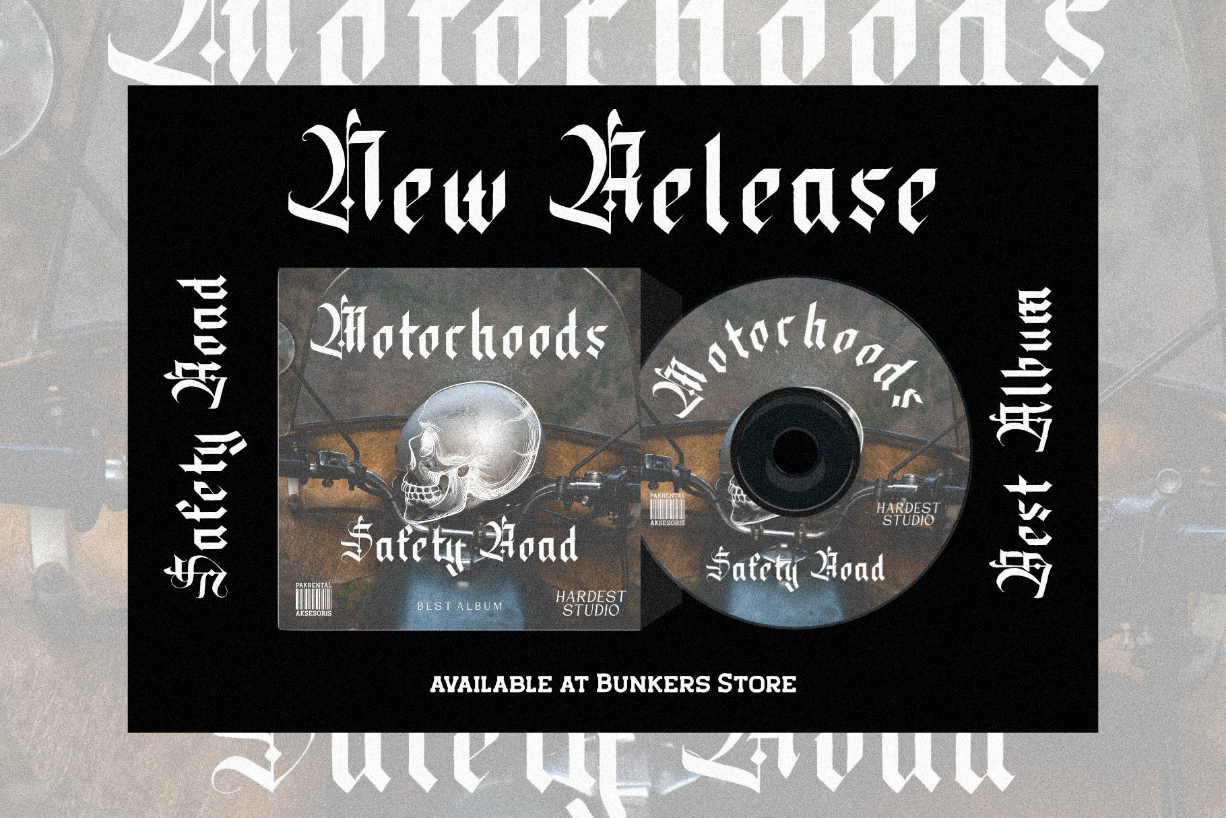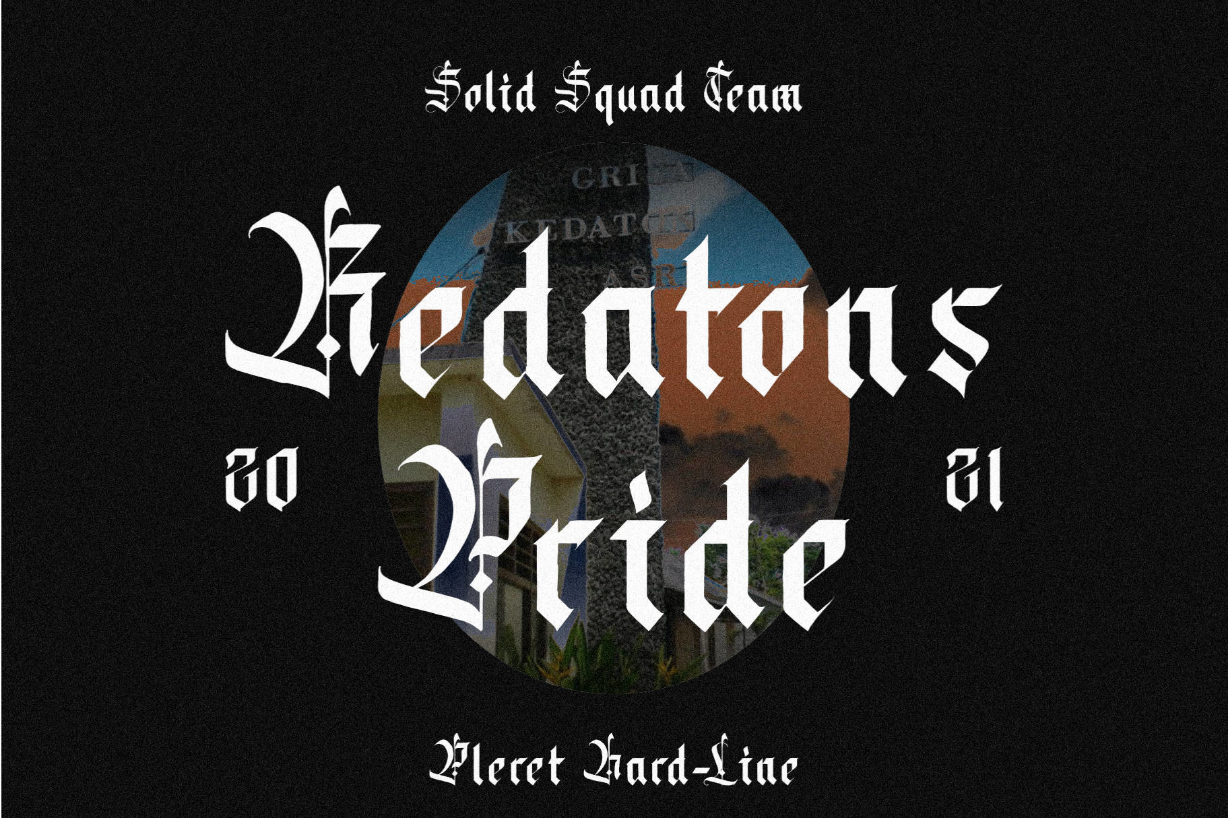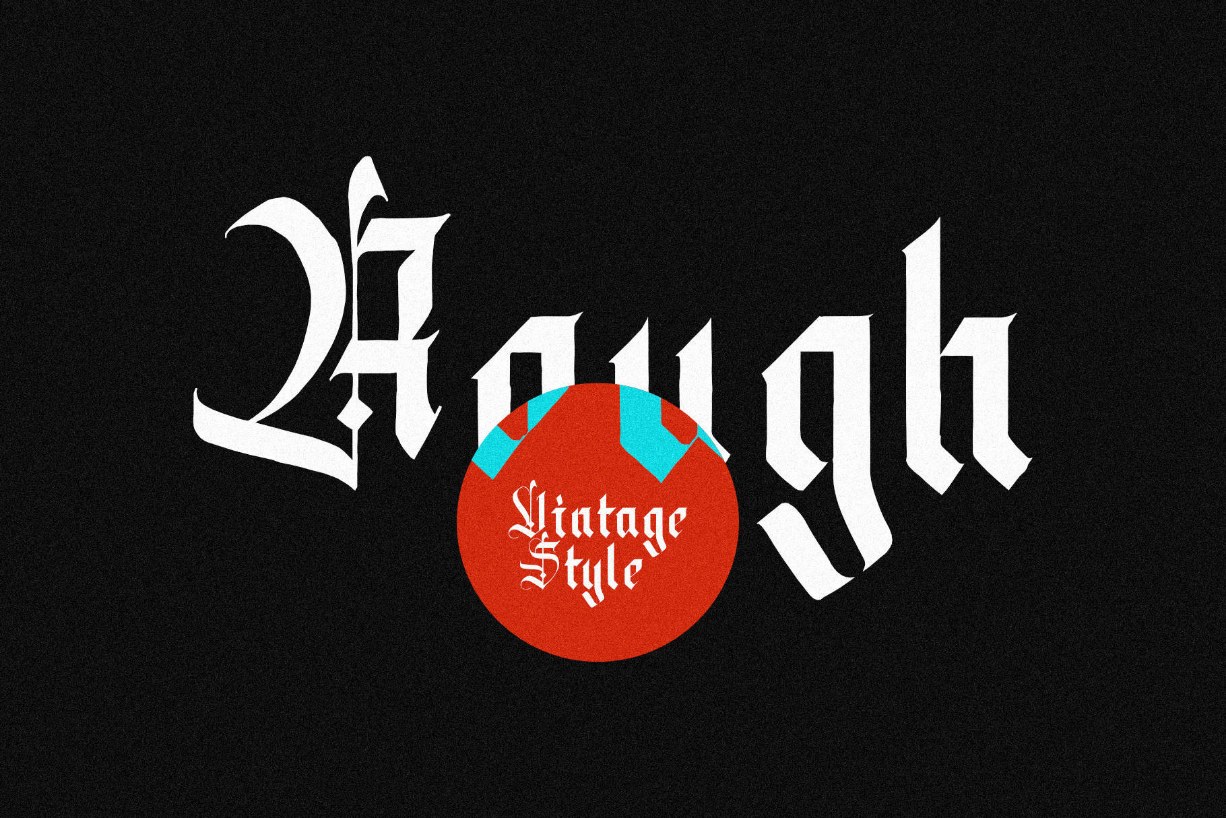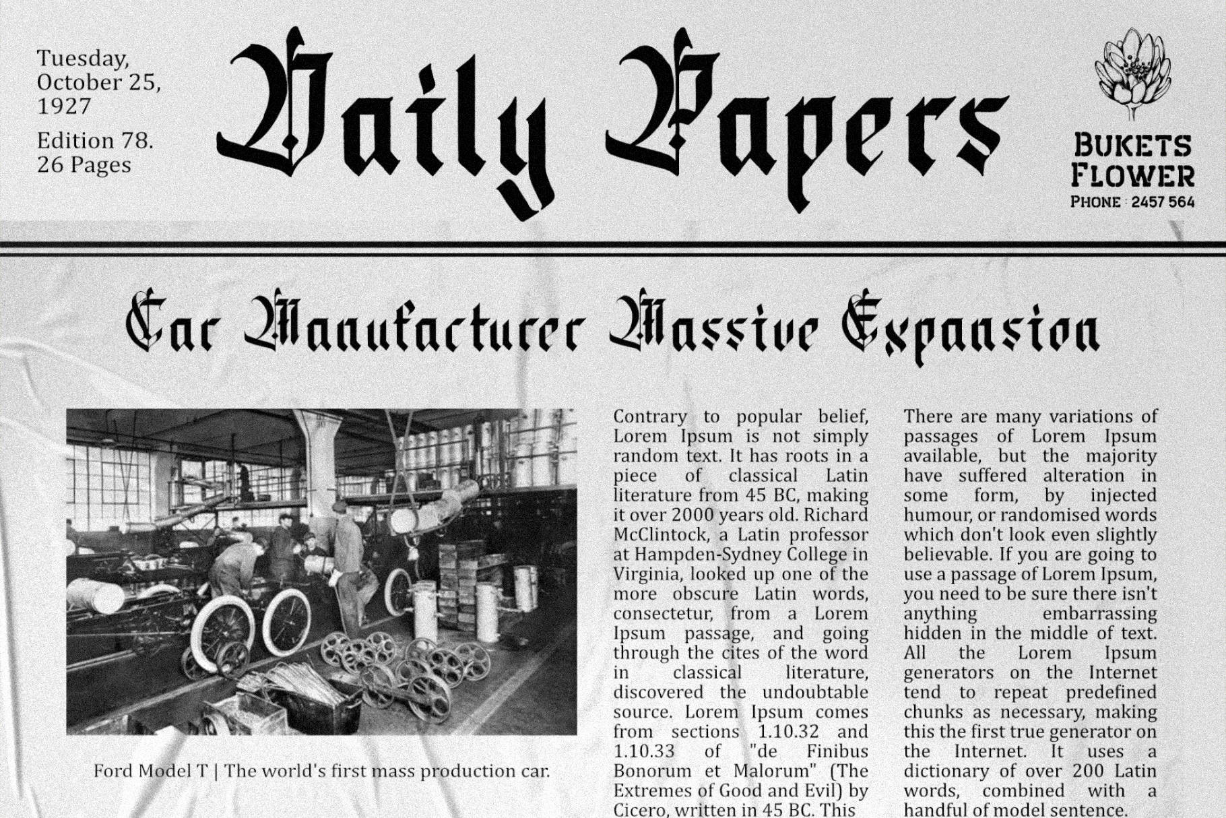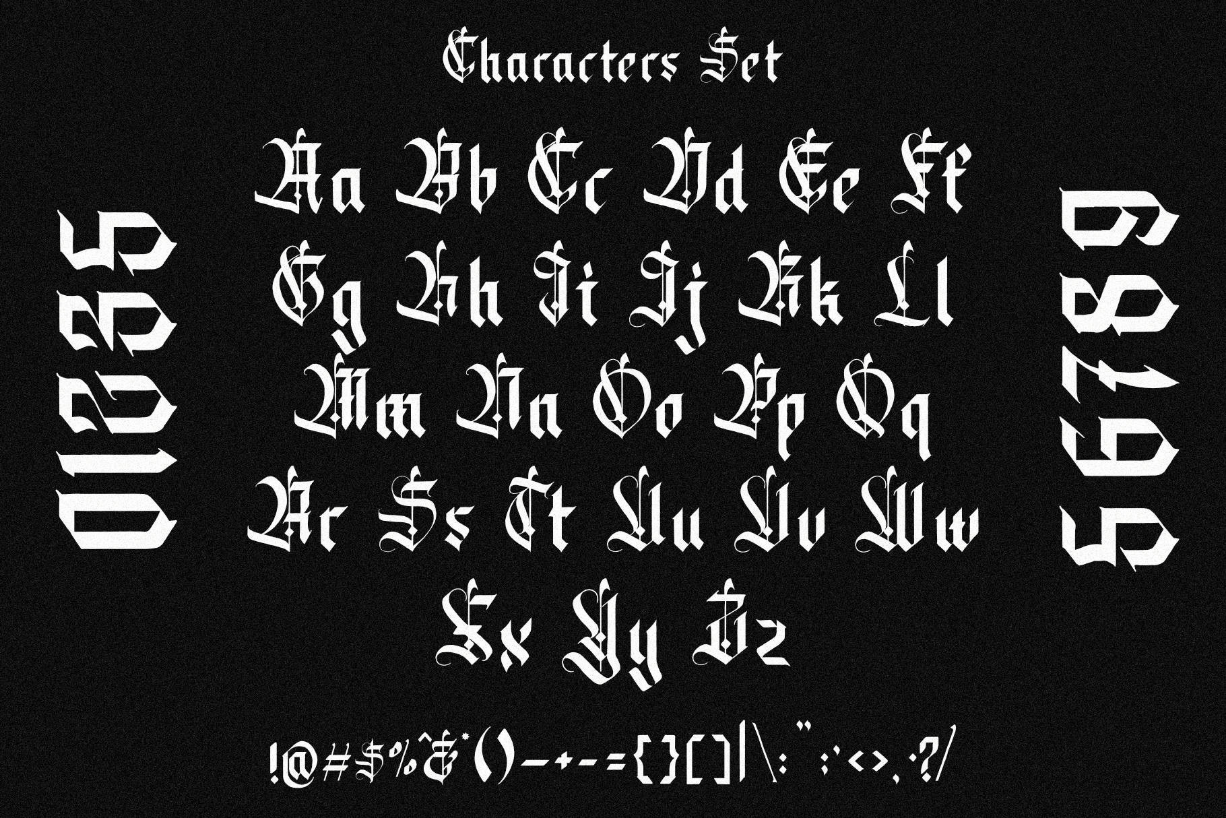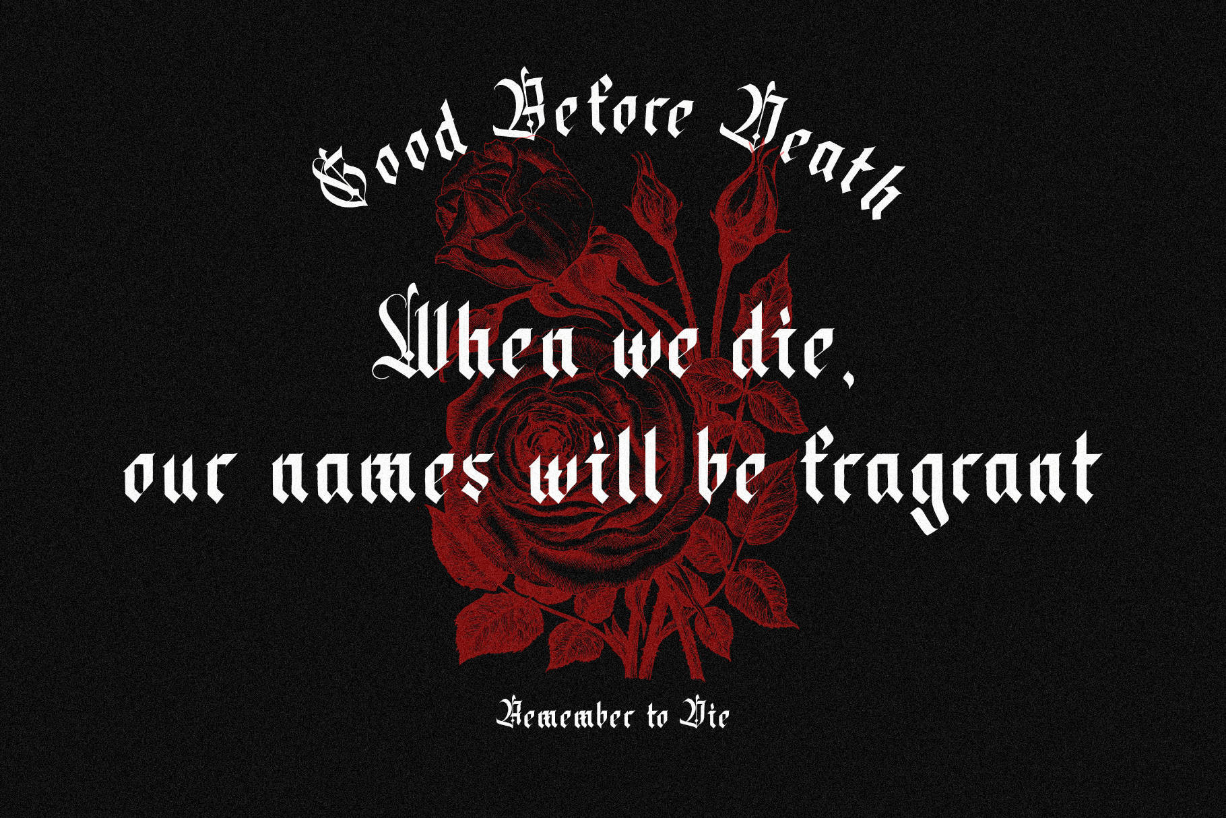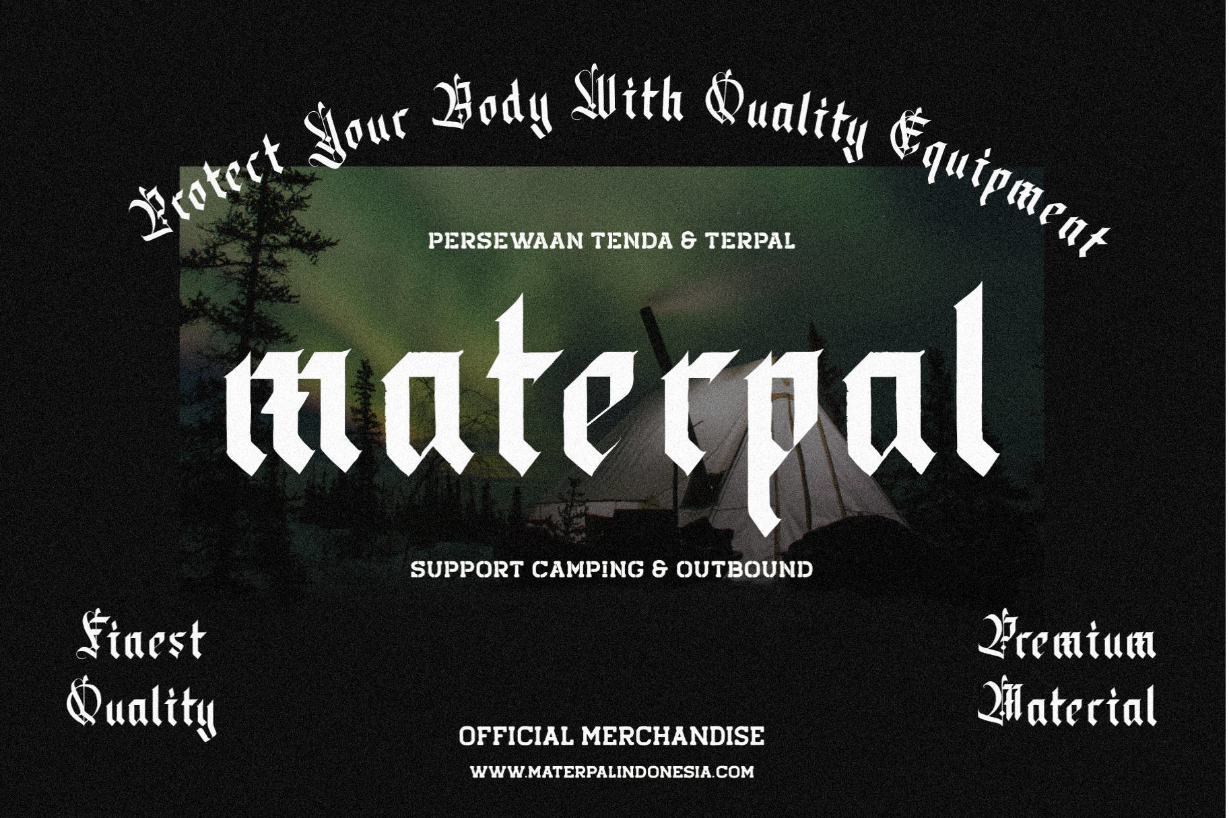
Datons Font
About Datons Font
Datons is a cool, bold, victorian blackletter font. It has a classy look that can be used for logos, branding, invitations, stationery, wedding designs, social media posts, and much more!